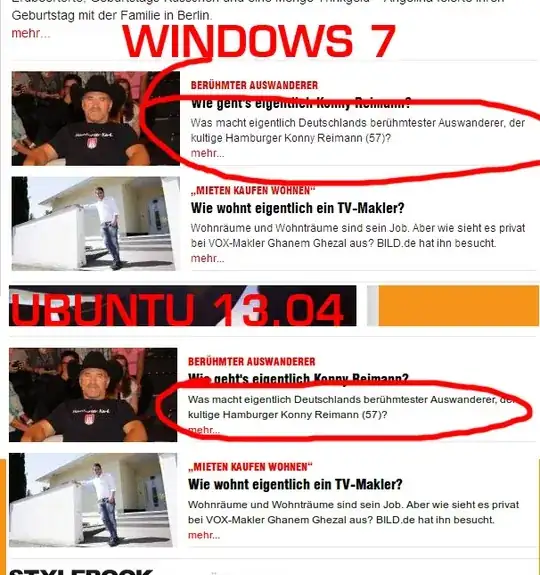
Fonts in Firefox and Chromium are still not the same as in Windows FF and Chrome after installing ms fonts.
I mean the fonts that were missing are now displayed, but they are not the same as on windows.
They are too "wide" or too "narrow/high" and e.g. if they are bold in FF on WIn in Ubuntu's FF they are super fat.
How can I improve the displaying of fonts in Ubuntu FF and Chromium?
I don't mind the wide default font in Ubuntu OS, but in browsers it's not very nice to see it differently as 80 - 90 percent of visitors.
Bacause right now it is not as on Windows.
I am using 13.04 version of Ubuntu.
If you look closer you can see the difference (wider and not so high font in Ubuntu):
Ubuntu and windows use different font rendering techniques. Windows uses ClearType, and Ubuntu uses FreeType. These font renders produce quite different results, FreeType tends to produce fatter/bolder looking fonts and ClearType tends to produce thinner looking fonts.
As a web developer there is really nothing you can do about it except make sure the difference doesn't result in clipped text.
Sorry, but I don't use Chromium. But as far as Firefox, to make the fonts look like in Windows, just click on Edit, and then Preferences
And then just make sure your font settings look like the images below.
Here is what I found, after doing research:
Most websites use "Cascading Style Sheets" to set fonts and many other layout features. Well-designed stylesheets will request a series of fonts so that, if one isn't available, an alternative is tried. Not surprisingly, most commercial sites design for Windows and often the developers don't think much, if at all, about how the site might render on other operating systems with the exception, perhaps, of Mac OS X.
You can tell Firefox to always use its own fonts in the Content dialog, but a better option is just to install the core fonts package. Often that's all you need.
That said, font rendering in Windows will always be slightly different from rendering in Ubuntu or other Linux platforms. Part of that has to do with intellectual property issues. Many commercial fonts are "hinted" to improve the display (anti-aliasing issues, for example); Linux often can't follow those hints because it would require the installation of proprietary technologies that require licensing.
You can also try installing other browsers like Chrome or Opera or, if you're using Kubuntu, Konqueror or rekonq.
Also you could try this:
Edit ~/.font.config and make sure it looks like the following
You really can't count on every website visitor on every platform with every operating system having a pixel-perfect match in rendering your site. That's not how the world wide web works.
You can never know what the user has done with the default font DPI, smoothing/hinting/aliasing, browser zooming, or all the other wonderful things that it's perfectly fine for a user to change on their machine.
Do you know how they make a business out of showing you screenshots of one web page in dozens of different browser versions on four different operating systems? It's because every one of those might look a little different in some ways than any other one.
Get used to it.
If your layout breaks because the font proportions are a little different on one platform, you're doing web development wrong. Your job as a web developer isn't to make it look exactly the same everywhere. Your job is to make it functional and visually pleasant for every visitor, regardless of those differences.
If you try to force consistency too much, you'll end up with a page that breaks the aesthetic the visitor expects in their operating system or browser of choice. (For what it's worth, I really prefer the Ubuntu look that you're trying to prevent in your example.)
If you really want pixel-perfect consistency in defiance of the visitor's expectations and preferences, you can always become a Flash developer!
Your realistic goal is that everything renders reasonably well, doesn't break your layouts, and that your scripts work, not that the pages look exactly the same on different platforms.
You can try making changes to /etc/fonts/conf.avail/51-local.conf .
Adding hinting,antialias, hintstyle might be able to solve the difference of appearance in libre office , firefox , chromium e.t.c.